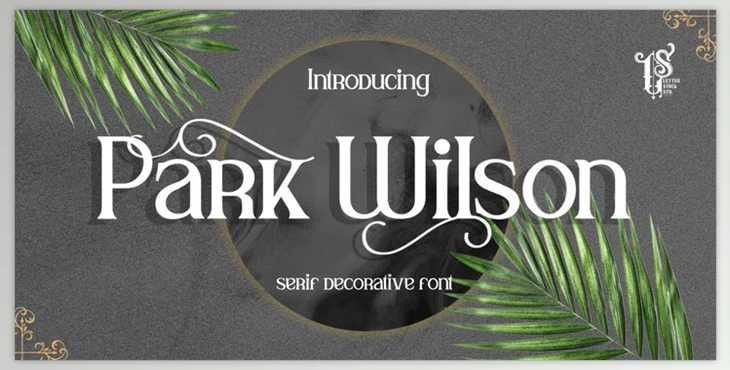
The design was inspired by the vintage style that I saw in a coffee shop. It was designed by hand to create a natural, handmade feel in its branding. I made it neat using pen tool.
Park Wilson font includes the 183 characters set that are included.
This font is great for designing logos, labels packaging, invitations, label advertising, and more. The font makes your design unique, distinctive, and attractive with a contemporary calligraphy style.